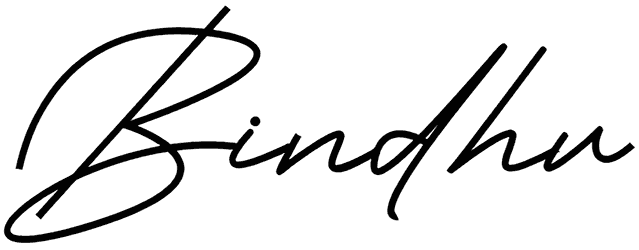
Bindhu Font
If you are looking for a font with a natural feel and casual touch, Bindhu is a great choice for you. This certificate font imitates the normal handwriting of a human and can give an authentic yet official look to your writings.
You can use this handwritten font for invitation cards, product packaging, and writing a letter. It’s somewhat difficult to read the connecting letters in Bindhu, however, it can add a warm personality to your projects.